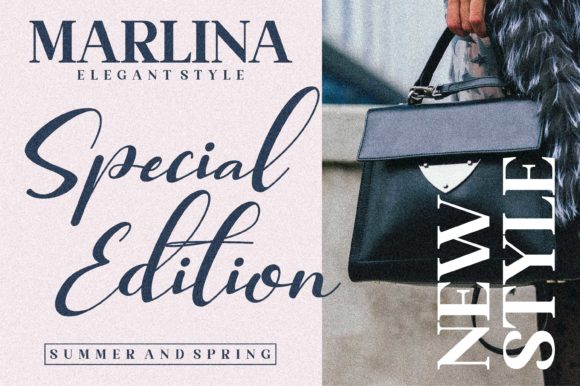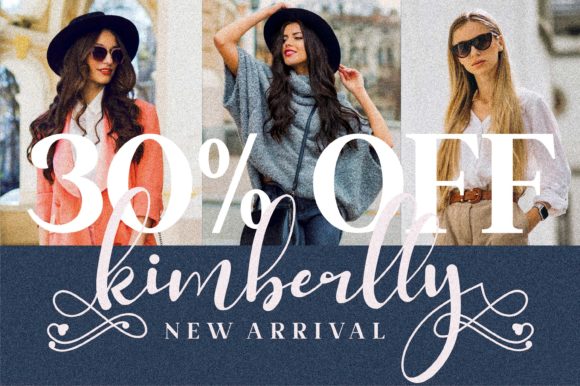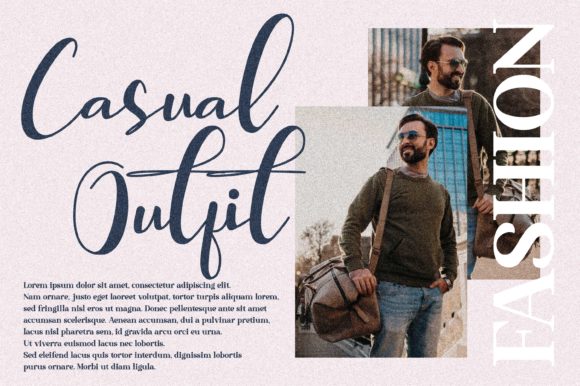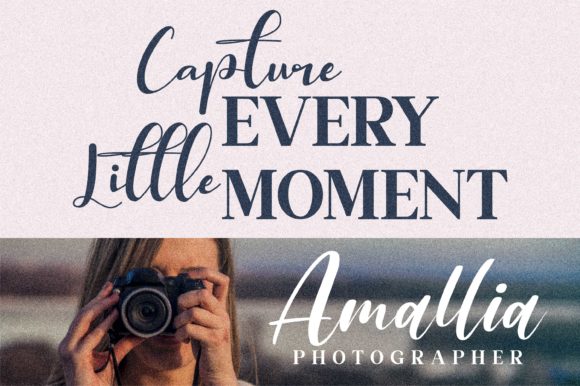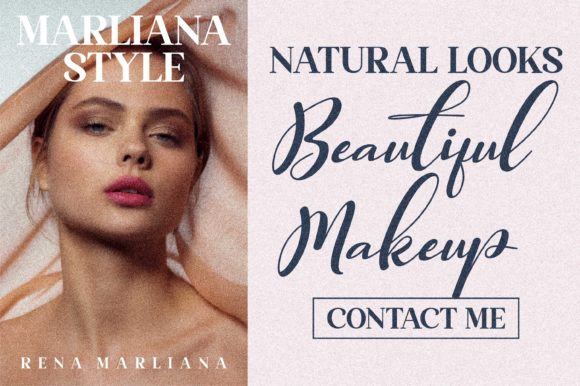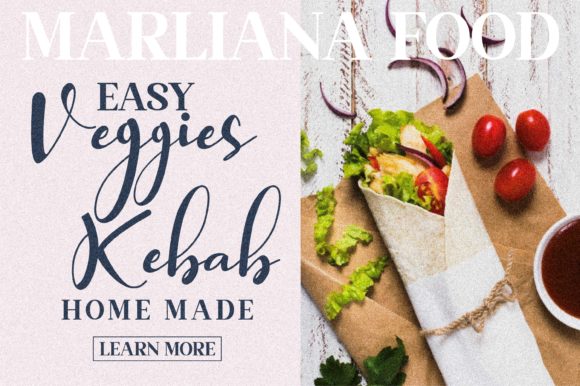
Introduction to Kimberlly Lovely Font
Kimberlly Lovely is a sweet, all round and flexible handwritten font.
Warm, romantic and jolly, this font will turn each of your project ideas into real works of art This font is PUA encoded which means you can access all of the glyphs and swashes with ease.